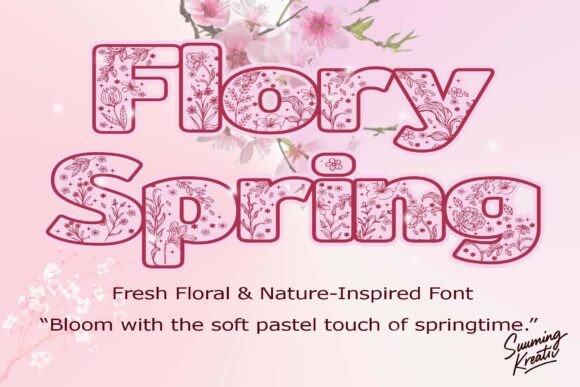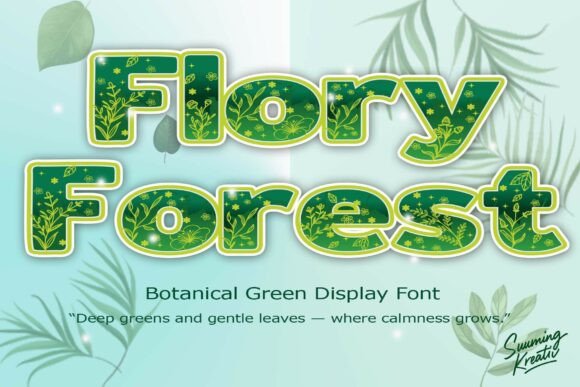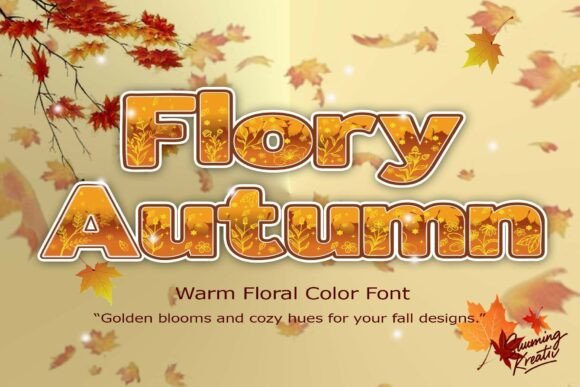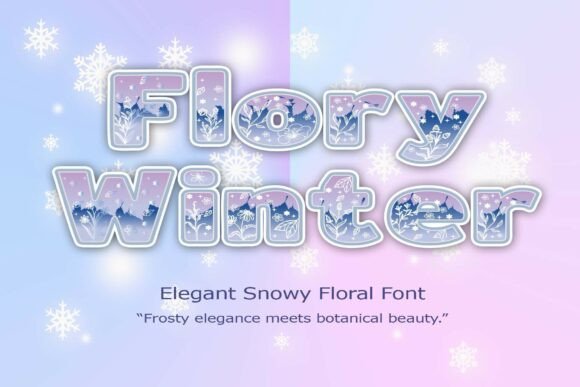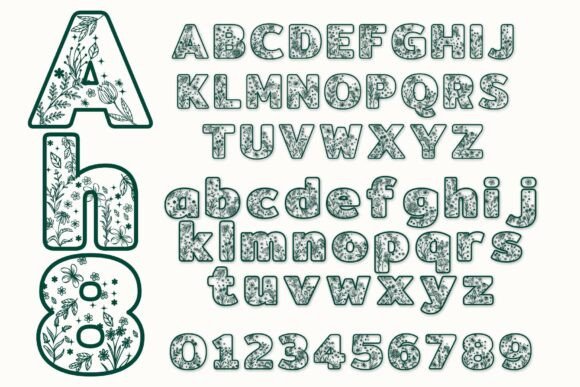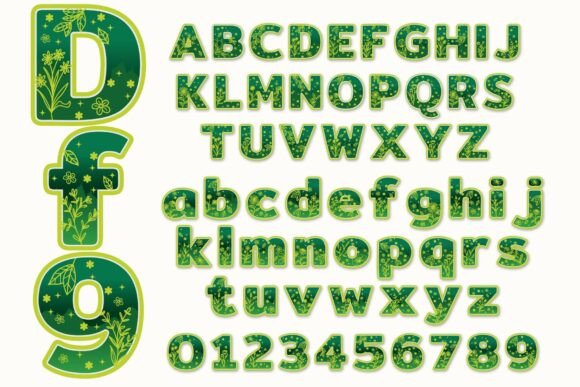
Immerse Your Designs in Nature’s Beauty with Flory 4 Seasons Font
Are you tired of using the same old fonts in your designs? Do you want to add a touch of organic splendor to your projects? Look no further than the Flory 4 Seasons Font, a vibrant and imaginative color font bundle that celebrates the changing seasons. This spectacular array of floral artistry brings a new level of visual variety to your text, perfect for designers and crafters looking to create stunning and unique visual narratives.
A Font Bundle that Grows with the Seasons
The Flory 4 Seasons font bundle includes four seasonal font styles: 🌸 Flory Spring, 🌿 Flory Forest, 🍂 Flory Autumn, and ❄️ Flory Winter. Each font style is meticulously crafted to evoke the essence of its respective season, offering rich visual variety throughout the year. Whether you’re designing for spring, summer, autumn, or winter, this font bundle has got you covered.
A Garden of Glyphs at Your Fingertips
Each character in the Flory 4 Seasons font is a masterpiece, showcasing intricate botanical illustrations and rich, harmonious color palettes. This font bundle is more than just a collection of letters – it’s a garden of glyphs that will bring life and natural elegance to your designs. From invitations and greeting cards to decorative signage and whimsical branding, the Flory 4 Seasons font is perfect for any project that yearns for a touch of organic splendor.
Breathe Life into Your Designs
With the Flory 4 Seasons font, you can create truly stunning and unique visual narratives. Every letter blooms with intricate details and vibrant colors, adding a touch of magic to your designs. Imagine creating a spring-themed invitation with the 🌸 Flory Spring font, complete with blooming flowers and lush greenery. Or, picture a winter-themed greeting card with the ❄️ Flory Winter font, featuring snowflakes and icy blues. The possibilities are endless with this versatile font bundle.
The Flory 4 Seasons font is perfect for designers and crafters looking to add a touch of nature’s beauty to their projects. Whether you’re creating digital designs or handmade crafts, this font bundle is a must-have. Use it to create stunning invitations, greeting cards, and decorative signage, or incorporate it into your branding and marketing materials. The Flory 4 Seasons font is sure to impress and leave a lasting impression on your audience.
Key Features of the Flory 4 Seasons Font
- 4 seasonal font styles: 🌸 Flory Spring, 🌿 Flory Forest, 🍂 Flory Autumn, and ❄️ Flory Winter
- Meticulously crafted botanical illustrations and rich, harmonious color palettes
- Perfect for invitations, greeting cards, decorative signage, whimsical branding, and more
- Versatile and easy to use, with endless possibilities for customization
- A true celebration of the changing seasons, bringing a touch of organic splendor to your designs
Get Ready to Bloom with Flory 4 Seasons Font
With its vibrant colors, intricate illustrations, and versatile design, the Flory 4 Seasons Font is sure to be a game-changer for designers and crafters. So go ahead, take a step into the world of floral artistry, and watch your designs bloom with the beauty of nature.